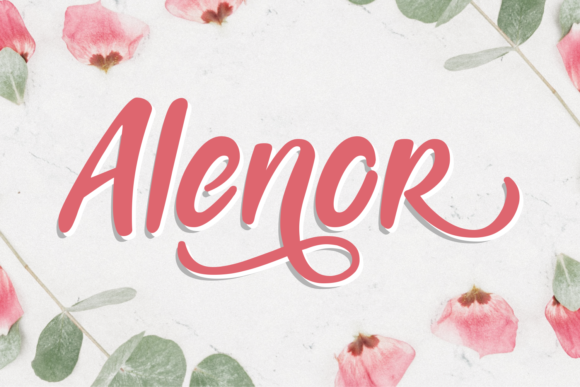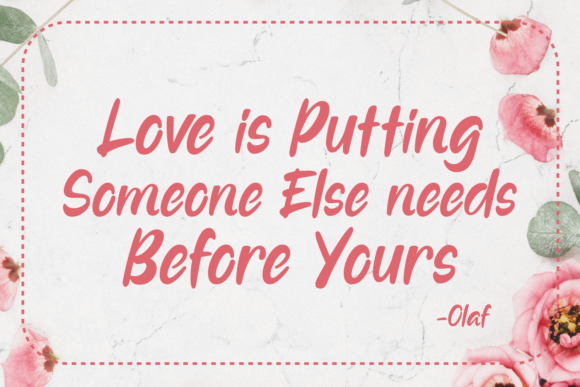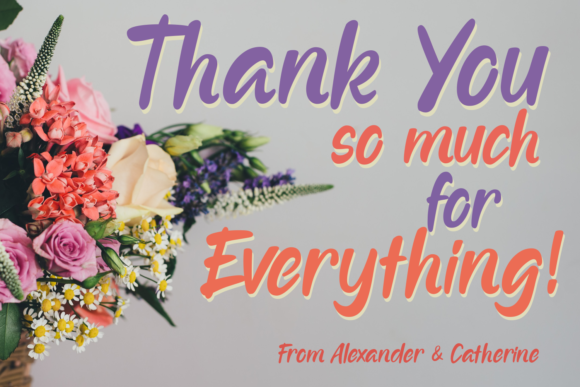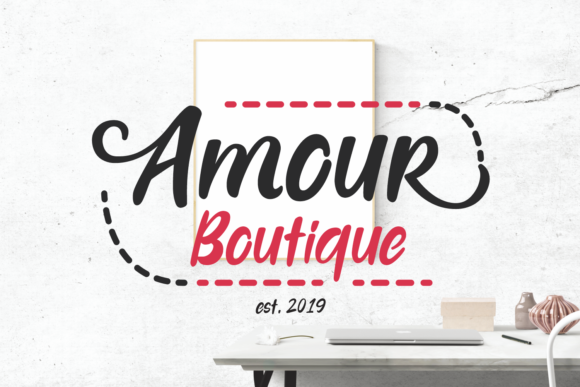
HomeScript FontsAlenor Font Script Fonts Alenor Font FacebookXPinterestWhatsApp Alenor Font Poster 2 Alenor Font Poster 3 Alenor Font Poster 4 About Alenor Font Alenor is a sweet and romantic script, making it a classic crafting font! DOWNLOAD ON CREATIVE FABRICAThis font is sold and delivered by Creative Fabrica. Font Canyon may earn a commission if you buy through this link. People also explored Durkin Font Birds Font Pundak Kamild Font Cabo Slab Font Family Font Jhenythan Cristian Font Elise Dafisa Script Font Plantation Font Animale Font 281 0 TagsAlenor Font Previous articleAlegra FontNext articleSelline Font LEAVE A REPLY Cancel reply Comment: Please enter your comment! Name:* Please enter your name here Email:* You have entered an incorrect email address! Please enter your email address here Website: Save my name, email, and website in this browser for the next time I comment. Personal Use Free Rhetorical Personal Use Free Read more about this font Nulshock Bold Personal Use Free Read more about this font Makcex Personal Use Free Read more about this font Pouline Personal Use Free Read more about this font BLOG The 10 Best Handwriting Fonts to Add Personality to Your Designs 10 of the Best Handwriting Fonts for Adding Personality to Your Designs There will undoubtedly be no other better choice than handwriting fonts to give... Modern Sans-Serif Fonts That Brands Love in 2025 Elegant Wedding Invitation Fonts – Handwritten & Script Fonts Best Fonts for T-Shirt Design – Top 2025 Picks